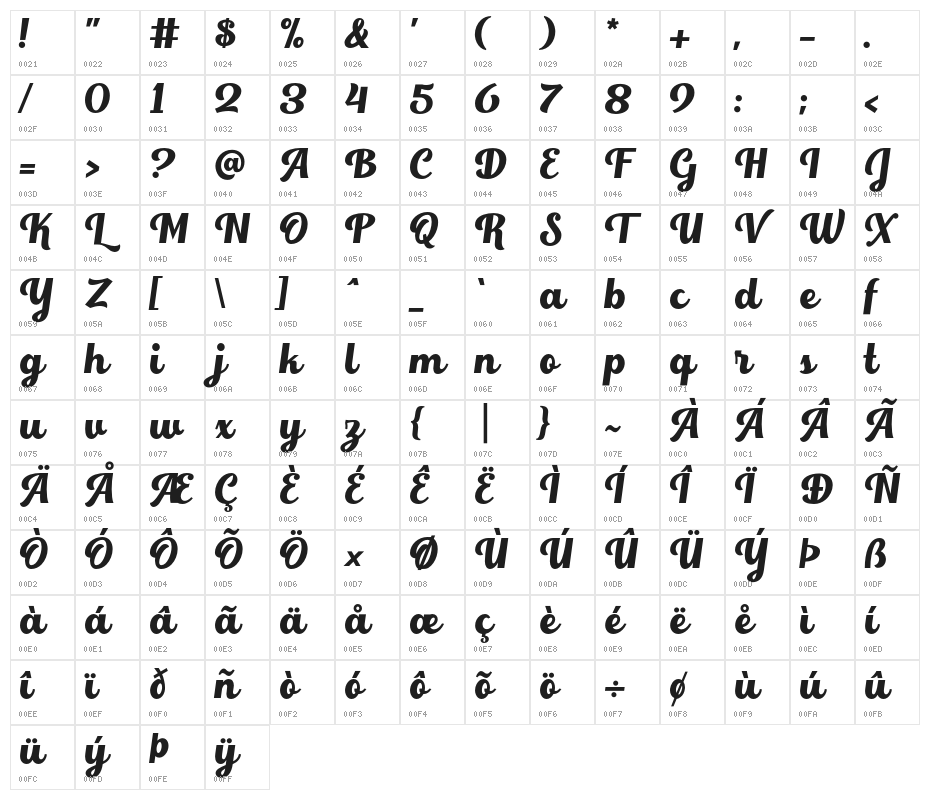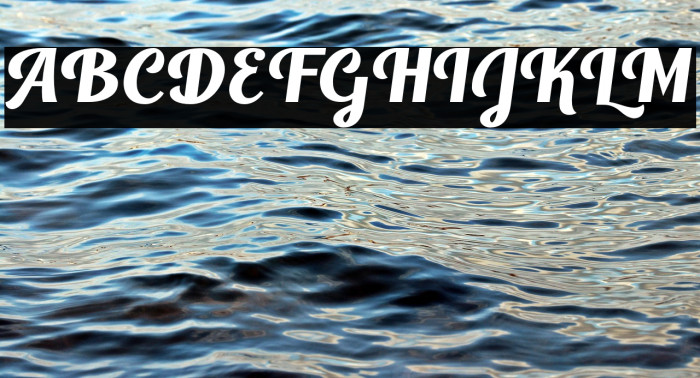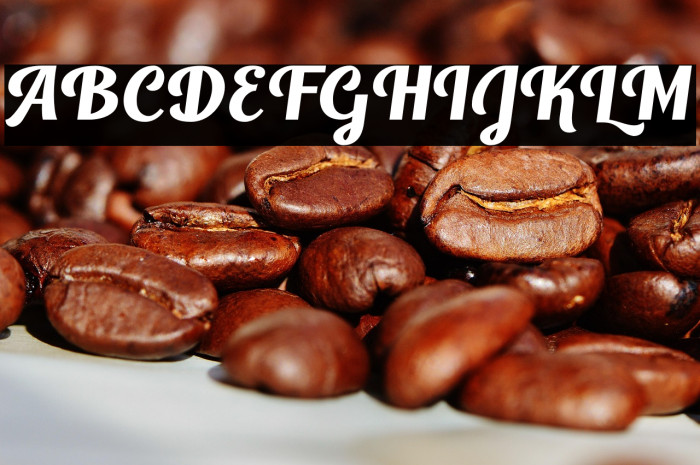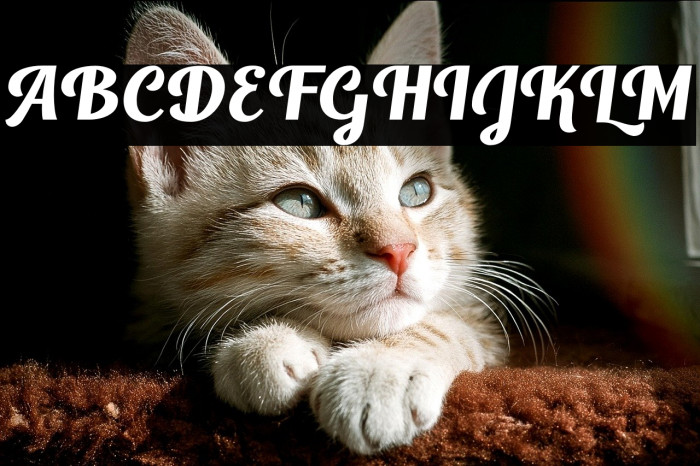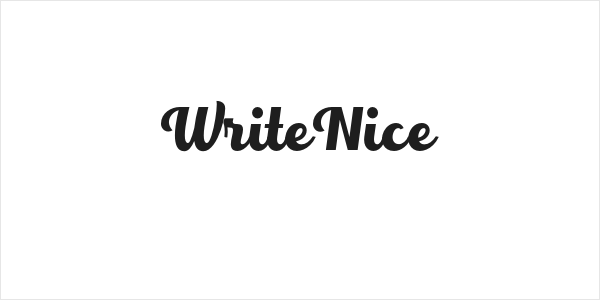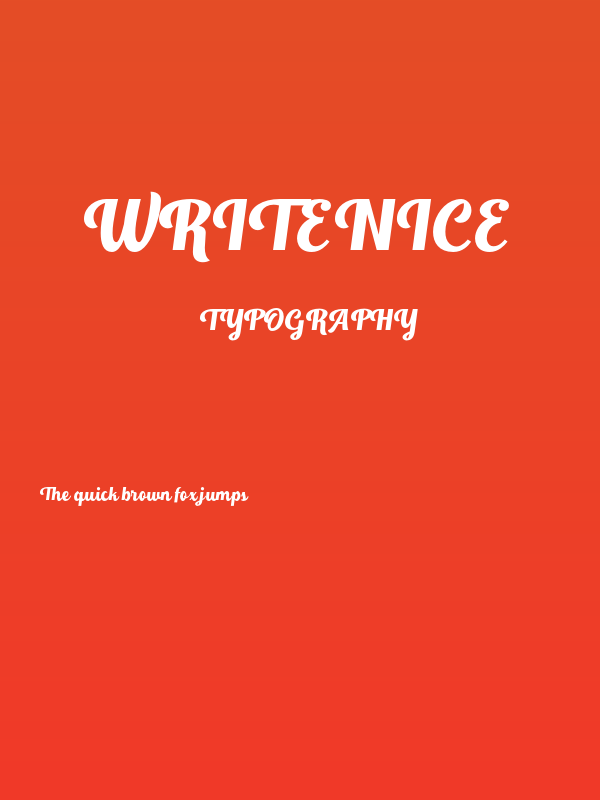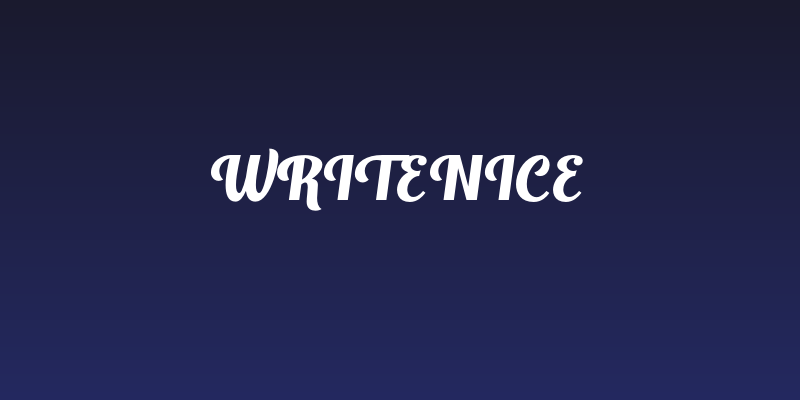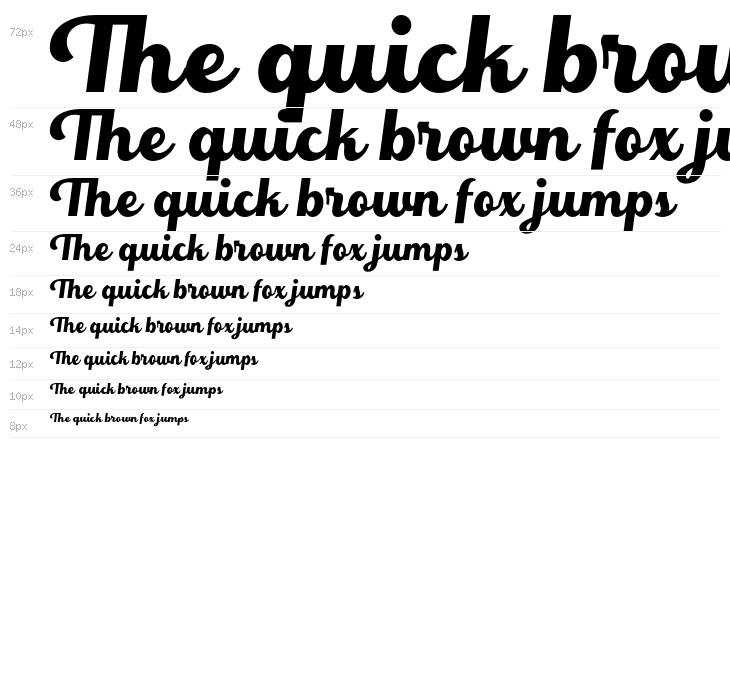
WriteNice Font
WriteNice Description
This font features a bold and dynamic script style, characterized by its flowing, cursive letterforms. The uppercase letters exhibit a strong presence with their sweeping curves and elegant flourishes, while the lowercase letters maintain a consistent rhythm, enhancing readability. The numerals are robust and harmonize well with the overall design, making them suitable for various applications. Special characters are thoughtfully integrated, maintaining the font's cohesive aesthetic. The overall appearance is both playful and sophisticated, making it versatile for a range of creative projects.
| Proposed Projects | Ideal for branding, invitations, posters, and creative headlines. |